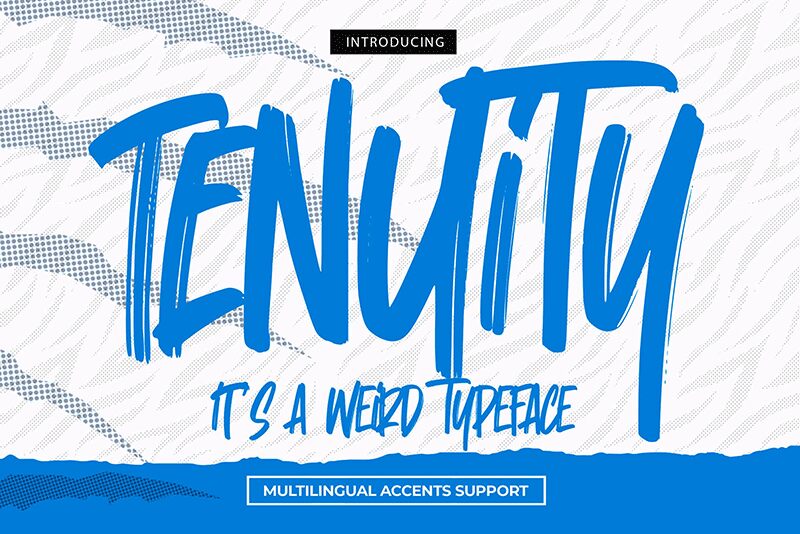
Tenuity
Tenuity, designed by Gassstype, stands out as a semi-light, condensed brush font that exudes a blend of casual elegance and contemporary flair. The hand-crafted strokes convey a sense of personal touch and artistic expression, making Tenuity an excellent choice for designers looking to infuse their projects with warmth and character.
Its semi-light weight provides a delicate yet assertive presence on the page, while the condensed width ensures that Tenuity remains both space-efficient and impactful. Perfect for branding, advertising campaigns, or any creative endeavor that calls for a font with personality and style, Tenuity's unique aesthetic makes it versatile enough to add an authentic brush stroke feel across various design landscapes.